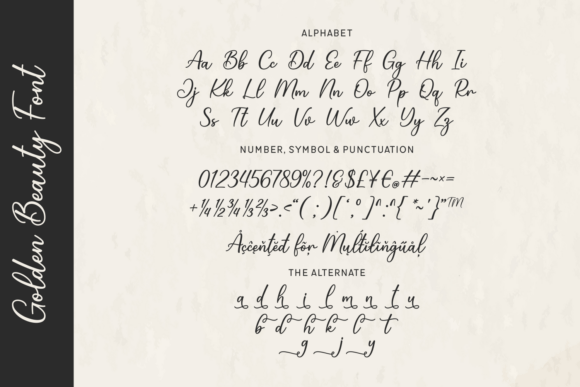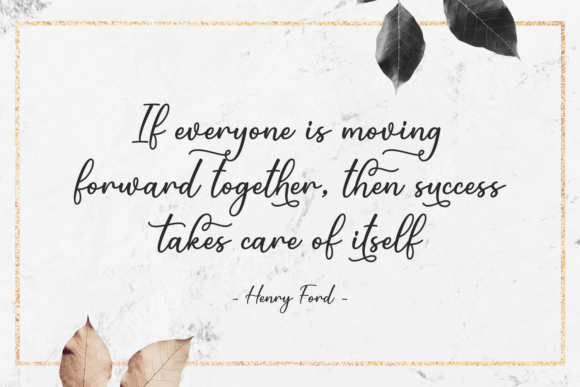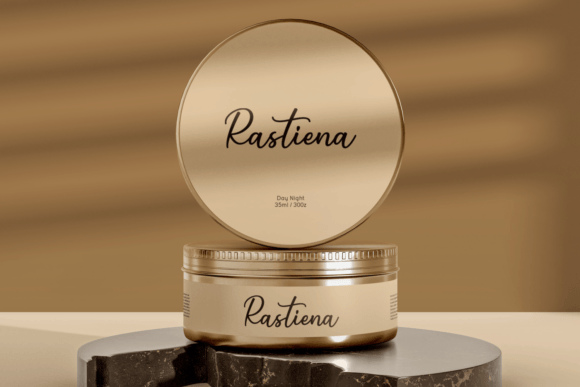
Unlocking Timeless Elegance with the Golden Beauty Font
Have you ever found yourself stuck in a creative rut, searching for the perfect font to elevate your design? I know I have. It’s that moment when you’re pouring your heart and soul into a project, and the right font can make all the difference. For me, it was the Golden Beauty Font that finally broke the spell and brought my design to life.
As a modern script font, Golden Beauty exudes elegance and sophistication, making it a perfect choice for wedding invitations, branding, social media, and other creative projects. Its delicate yet impactful style adds a luxurious touch to any design, making it a versatile choice for timeless and chic presentations.
Golden Beauty Font Key Features
- Font Family: A beautiful, elegant script font designed to evoke a sense of luxury and sophistication.
- Unique Characteristics: Features intricate, hand-drawn lettering with subtle flourishes and elegant curves, giving it a distinctive and luxurious feel.
Designer Review: Golden Beauty Font
Overall, I’d say the Golden Beauty Font is a visually stunning font that can elevate any design project. ✨ Its elegant, cursive script is perfect for creating a sophisticated and luxurious feel. ✨ The font’s golden undertones add a touch of warmth and sophistication, making it ideal for use in branding, packaging, and advertising.
The font’s versatility is another major plus. It can be used in a variety of contexts, from formal invitations to modern logos. Additionally, the font’s script style makes it easy to read and recognize, even at smaller font sizes.
- ⚠️ The font may be too ornate for some designs, potentially overwhelming the content. ⚠️
- ⚠️ The font’s golden undertones may not be suitable for designs that require a more neutral or minimalist aesthetic. ⚠️
- ⚠️ The font’s script style may not be ideal for designs that require a lot of text or complex layouts. ⚠️
Overall, I think the Golden Beauty Font is a beautiful and effective choice for designers looking to add a touch of elegance and sophistication to their projects. With careful consideration of the font’s limitations, it can be a valuable addition to any design arsenal.
Practical Application Guide for Golden Beauty Font
For best results, use Golden Beauty Font for headings and titles, and pair it with a clean and simple font for body text.
Use Golden Beauty Font to create elegant and sophisticated typography, perfect for invitations, wedding stationery, and other high-end designs.
Use Golden Beauty Font to add a touch of elegance and sophistication to your presentations and documents.
Tips for Getting the Most Out of Golden Beauty Font
Use Golden Beauty Font in combination with other elegant and sophisticated fonts to create a cohesive and stylish design.
Experiment with different font sizes and styles to create visual interest and hierarchy in your design.
Use Golden Beauty Font for headings and titles, and pair it with a clean and simple font for body text.
Wedding stationery and invitations
High-end branding and packaging